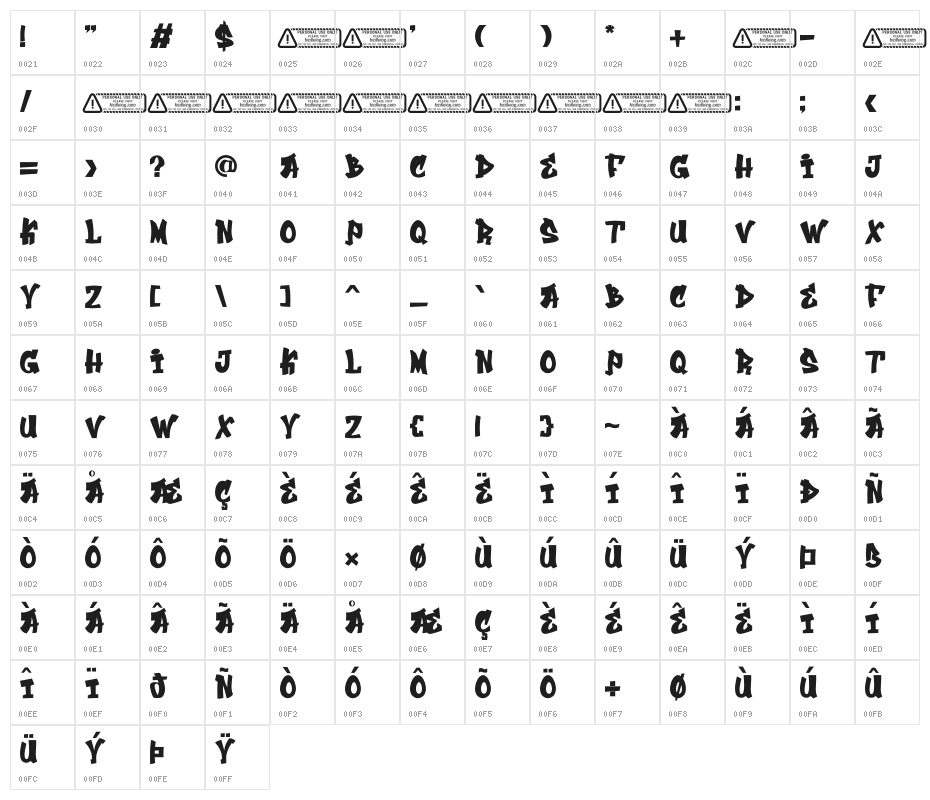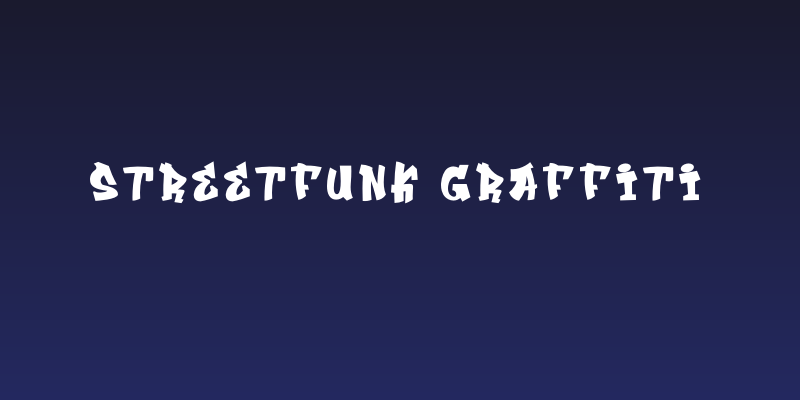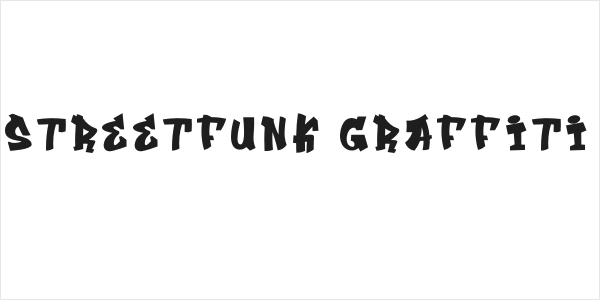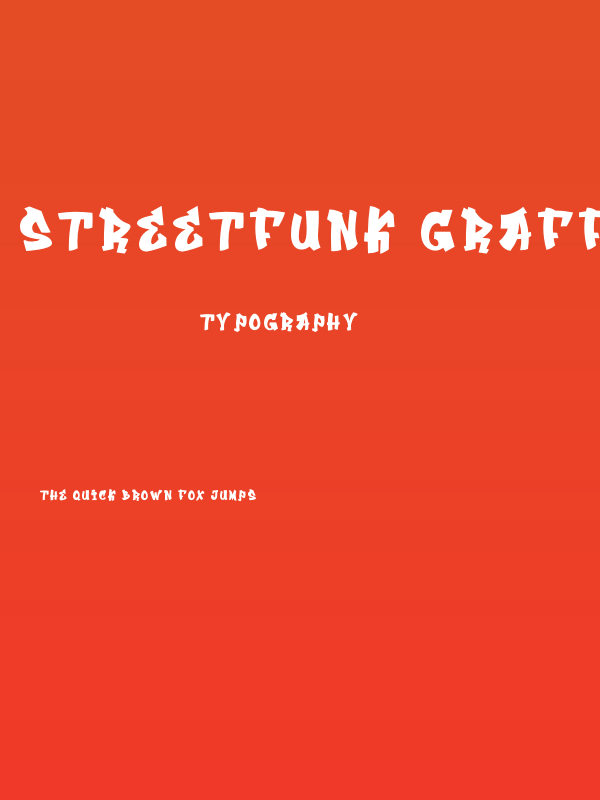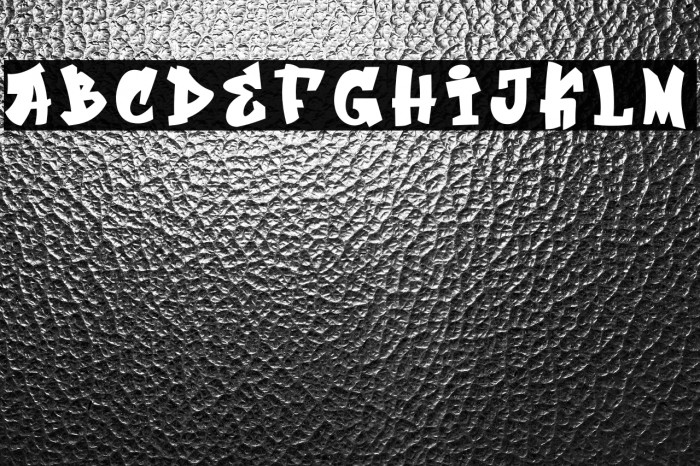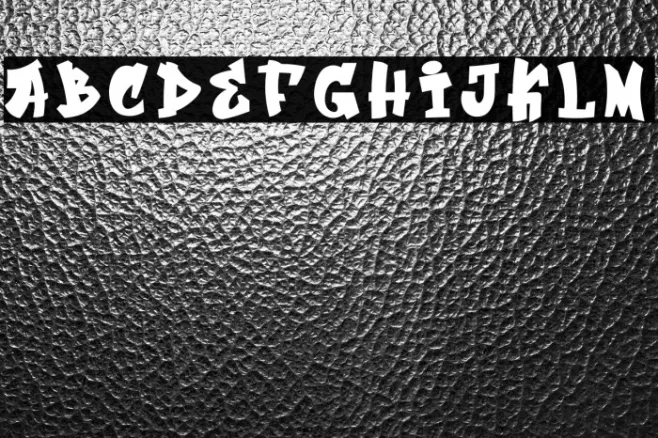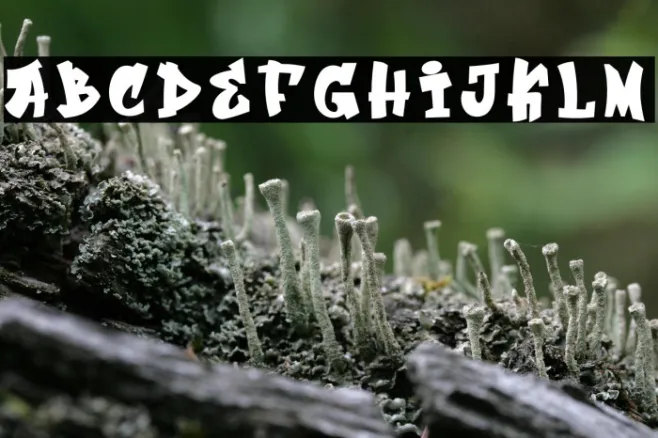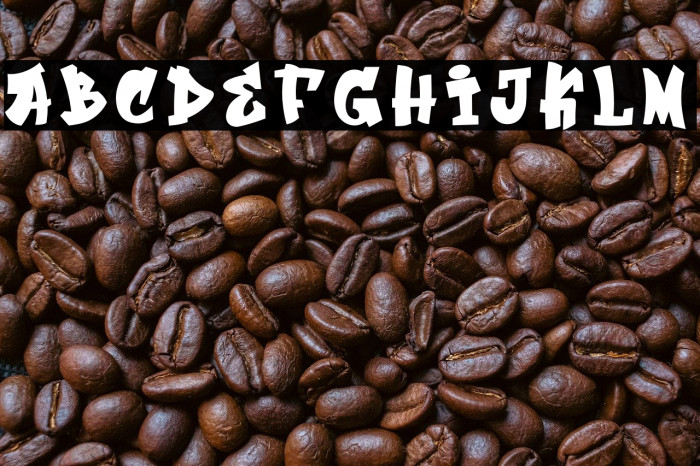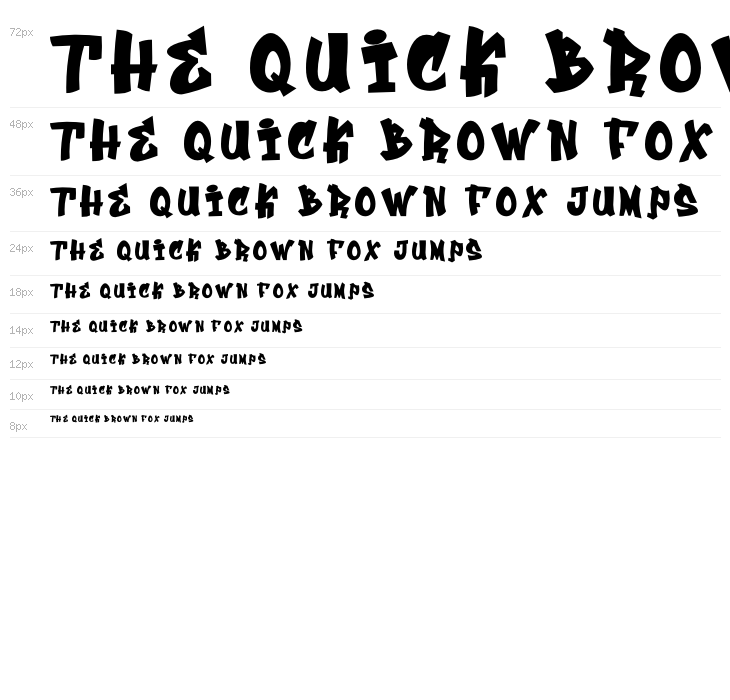
Streetfunk Graffiti Font
Streetfunk Graffiti Description
This font exudes a bold, urban vibe with its graffiti-inspired design. The characters are dynamic and edgy, featuring sharp angles and a playful, rebellious spirit. The uppercase and lowercase letters maintain a consistent style, with exaggerated curves and strokes that mimic the fluidity of street art. The numbers and special characters follow suit, adding to the cohesive, street-smart aesthetic. This font is perfect for projects that require a touch of urban flair and creativity.
| Overall Style | Urban, Edgy, Graffiti |
| Use Case | Logos, Posters, Album covers |
| Proposed Projects | Ideal for street art projects, urban-themed posters, music album covers, and edgy branding materials. |